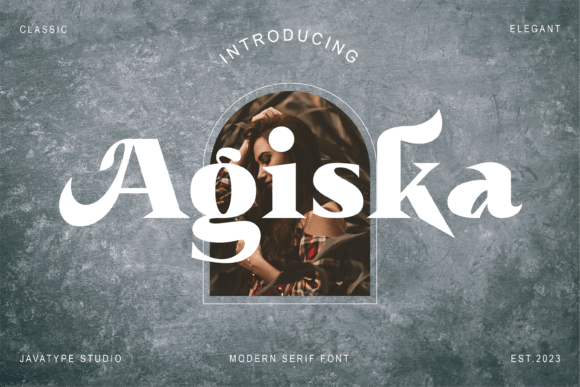
Introducing Agiska: A Modern Serif Font for Creative Expression
Have you ever been in the middle of a design project, and suddenly, you’re stuck on finding the perfect font? I recall a recent experience where I was working on a logo design for a client, and I just couldn’t find a serif font that matched their modern style. That’s when I discovered Agiska, a stunning modern serif font that combines bold typography with elegant design elements.
The Agiska Advantage
Agiska is more than just a font – it’s a design tool that offers a wide range of creative possibilities. Here are some of the features that make Agiska stand out:
• Modern style: Agiska’s sleek and sophisticated design makes it perfect for modern brands and creative projects.
• OpenType features: With an open type feature, Agiska comes with a variety of alternates and end swashes, allowing you to create unique and personalized lettering.
• ⚡️ Versatility: Agiska is suitable for a wide range of design applications, including logotypes, headings, covers, posters, logos, quotes, product packaging, headers, merchandise, social media, and greeting cards.
• ✨ The font’s modern style and bold typography make it perfect for creating eye-catching designs.
• ✅ The open type feature with alternates and end swashes offers endless creative possibilities.
• 👍 Agiska’s versatility makes it suitable for a wide range of design applications.
While Agiska is an excellent font, there are a few things to keep in mind:
• ⚠️ Some users may find the font’s bold style overwhelming for certain design applications.
The Story Behind Agiska
Agiska was designed with the goal of creating a modern serif font that combines elegance with bold typography. The designer aimed to create a font that would be versatile and suitable for a wide range of design applications, from logos and headings to body text and long-form content. Inspired by modern style and classic serif fonts, Agiska is the result of careful craftsmanship and attention to detail.
Q: What is Agiska?
Agiska is a modern serif font with bold typography and elegant design elements, suitable for a wide range of design applications.